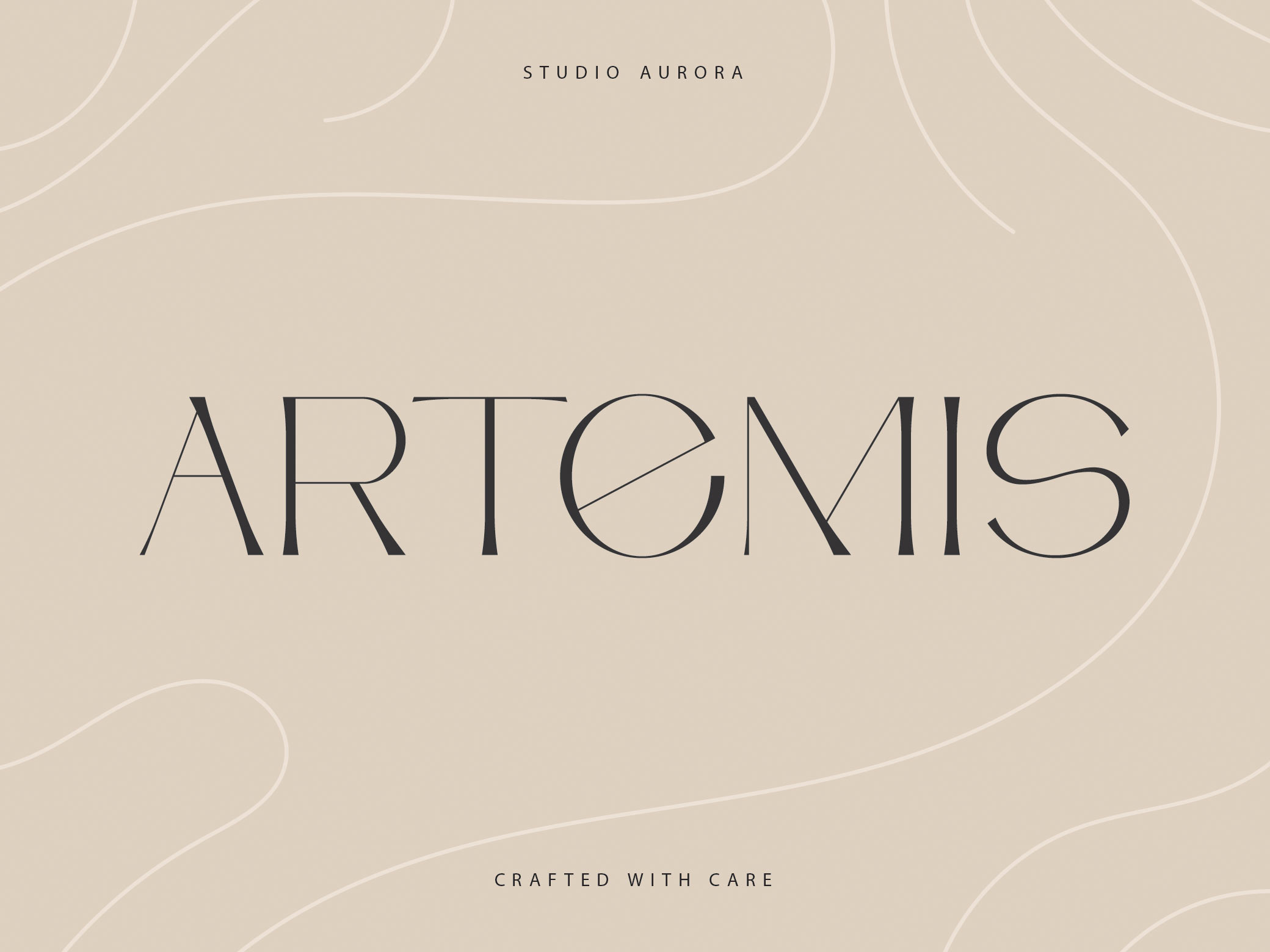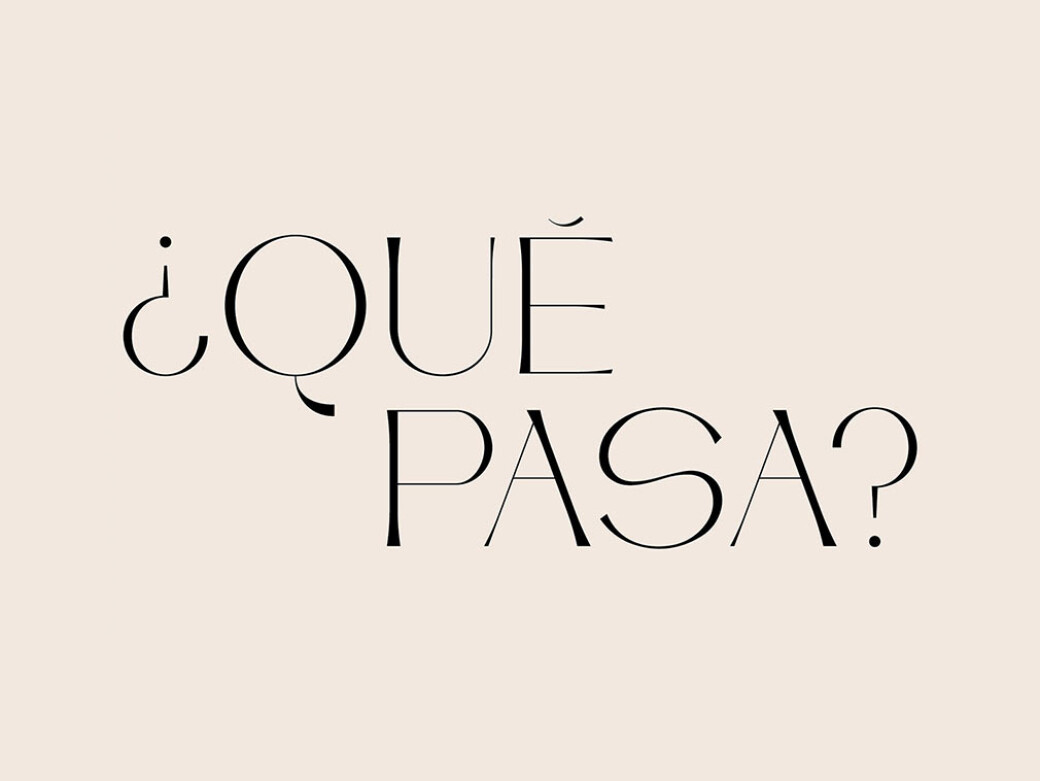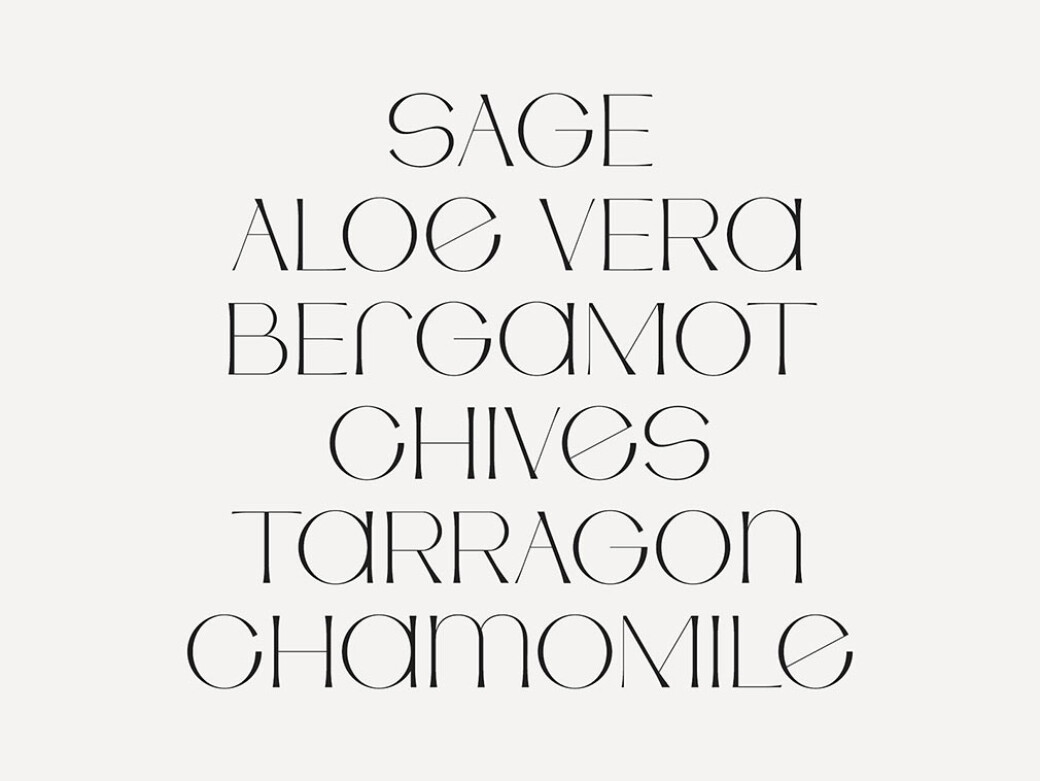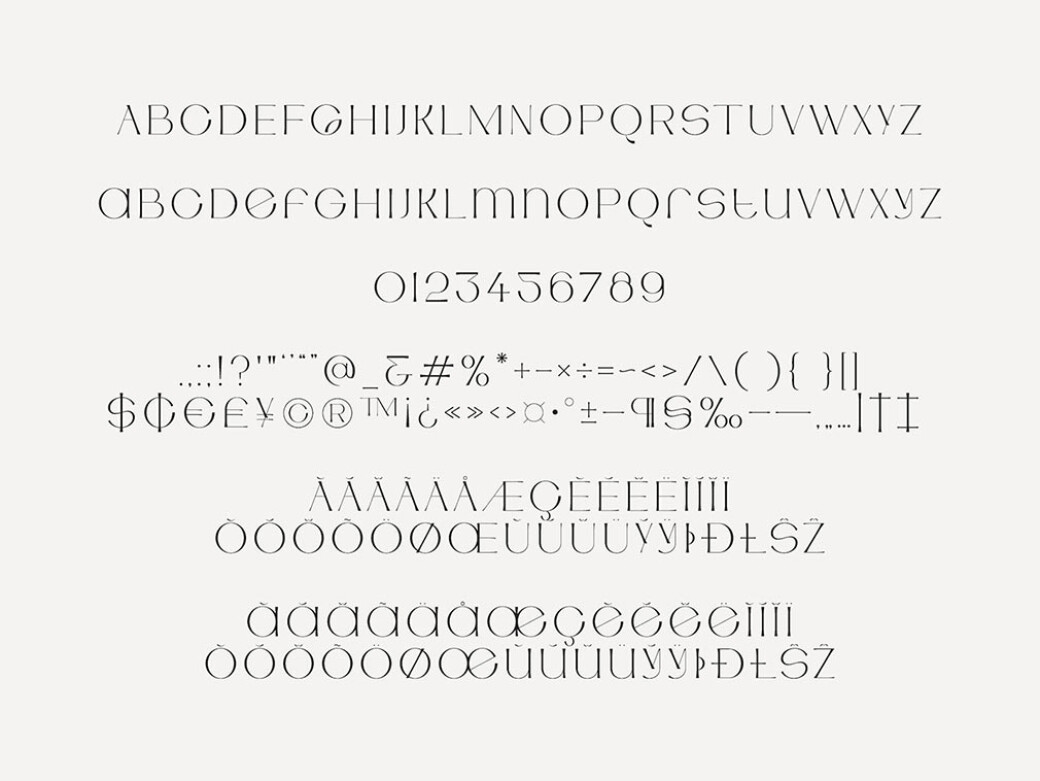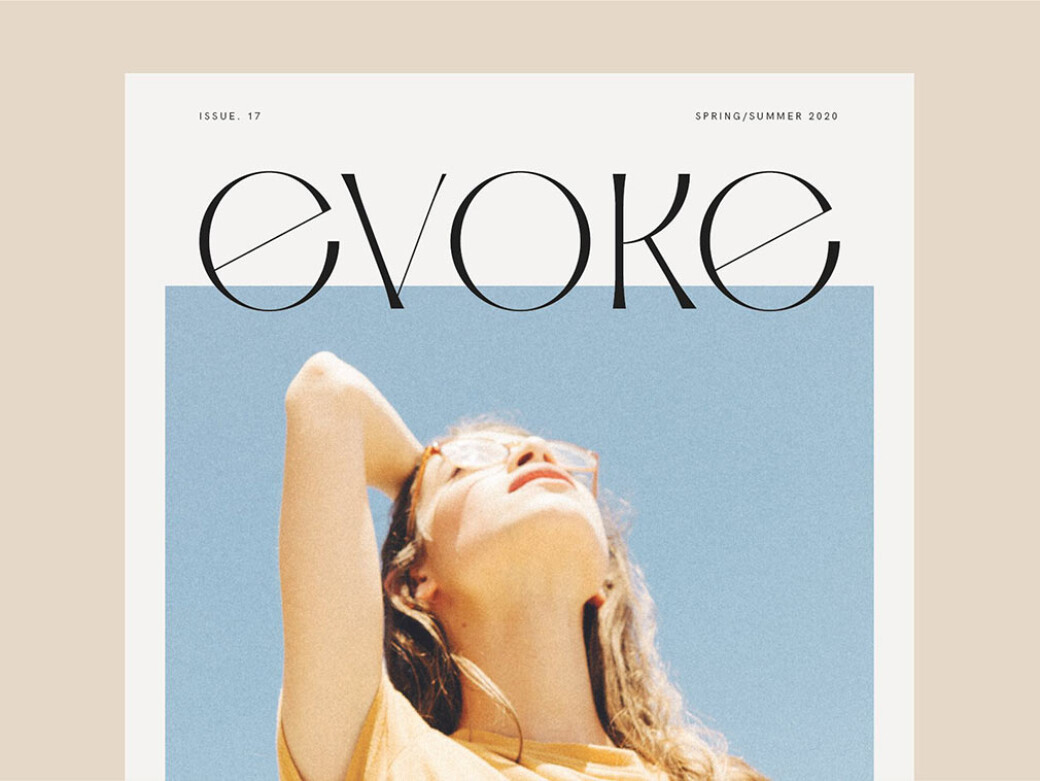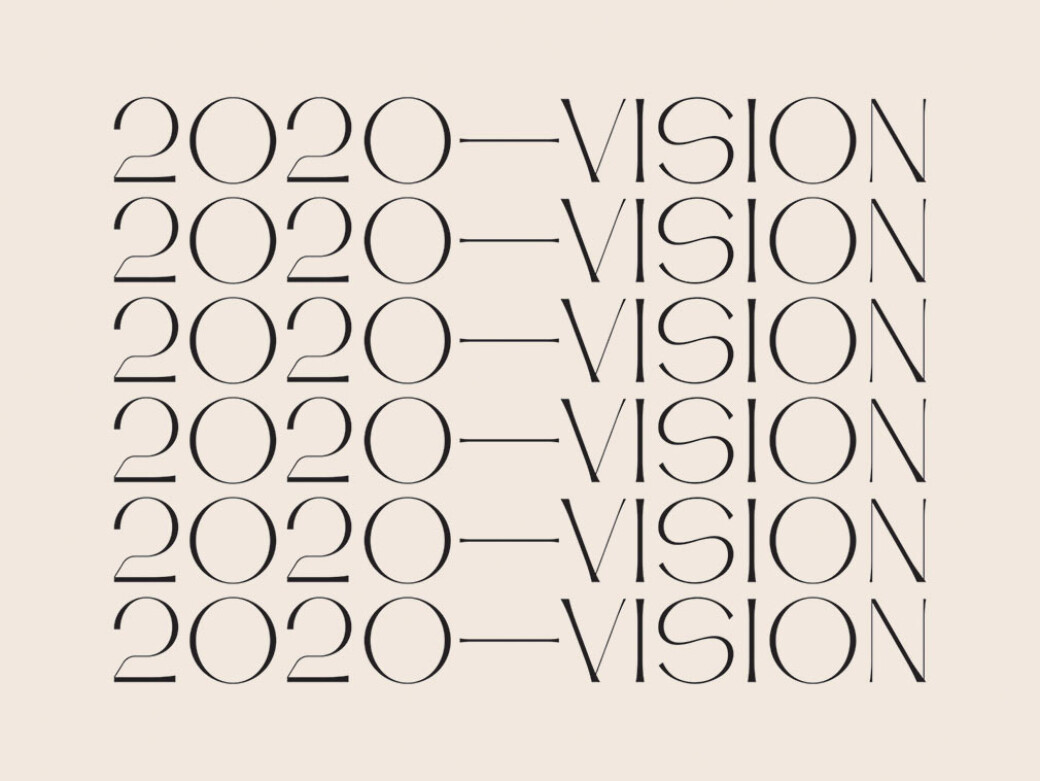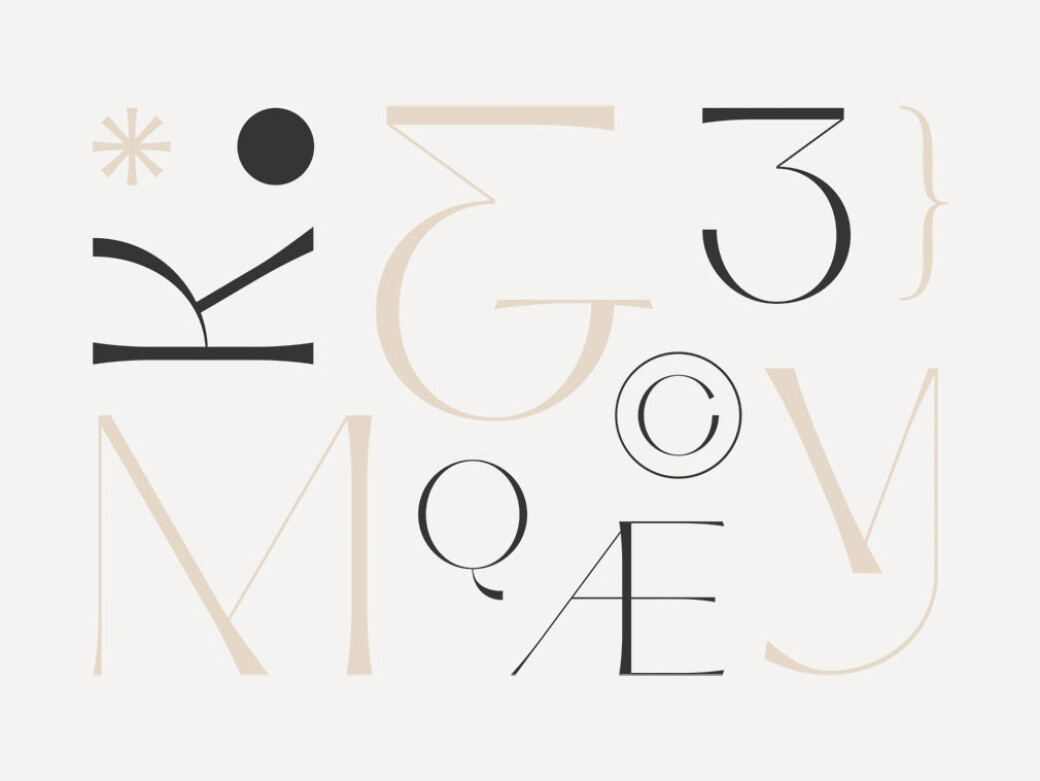
Artemis Serif Font
Get ready for the contemporary and elegant display typeface. The wholesome look of the serif font is something to be proud of once you include it in your designs. Sophistication in every line!This unique combination of upper and lowercase glyphs works to create a great variety in your projects! The font also comes with other necessities as punctuation marks, numbers and multilingual support, you won't get stuck on the way without the essentials.This is primarily a display font, so using it in the following types of projects will be the best move: magazines (titles and layouts), logos and branding, invitations, quotes, blog headers, posters, and advertising.